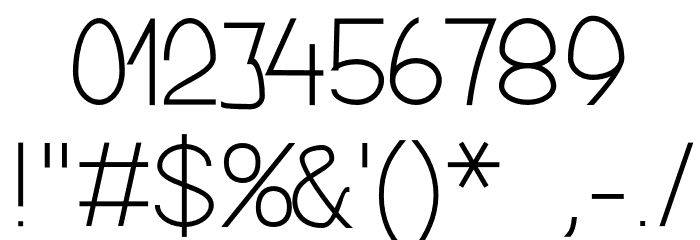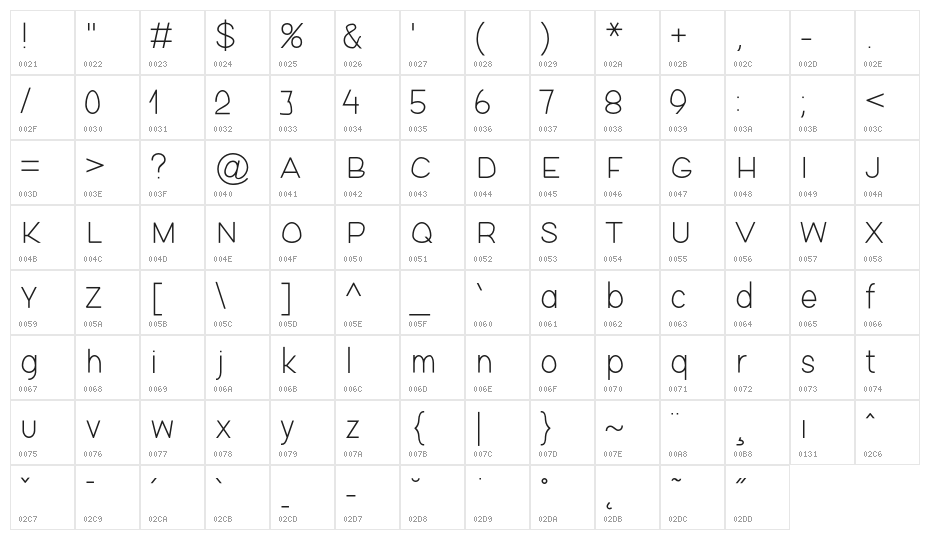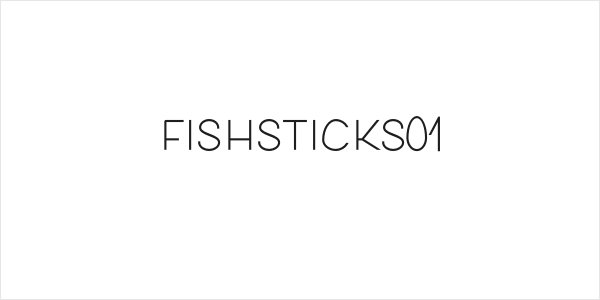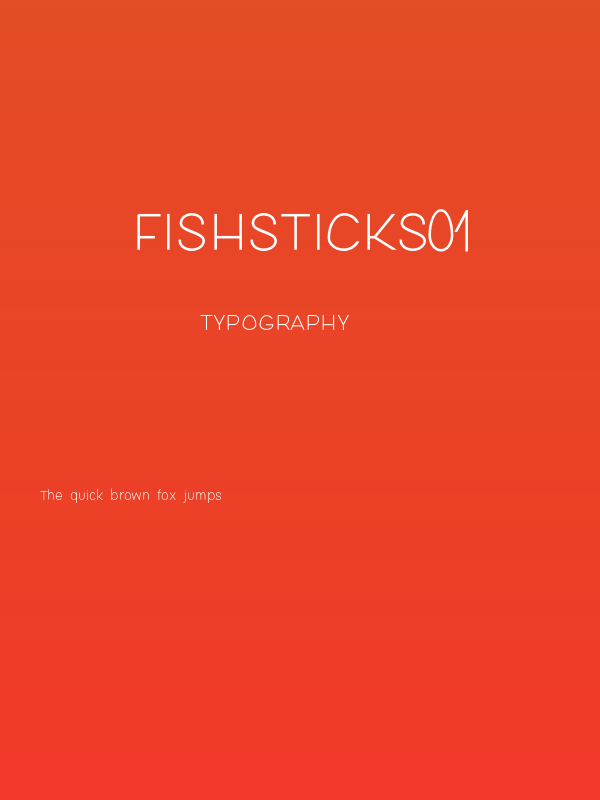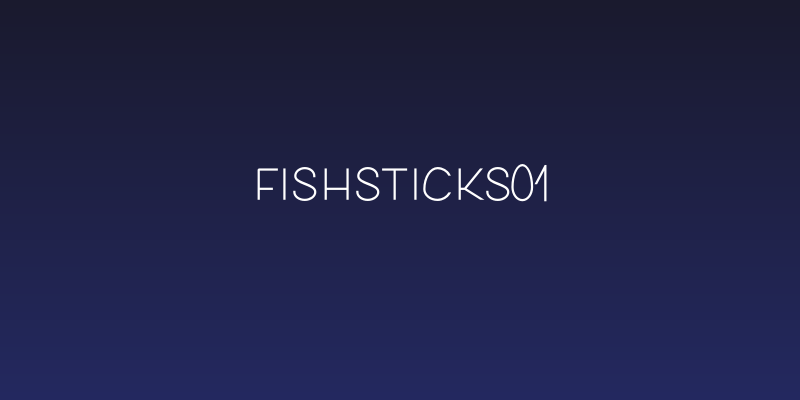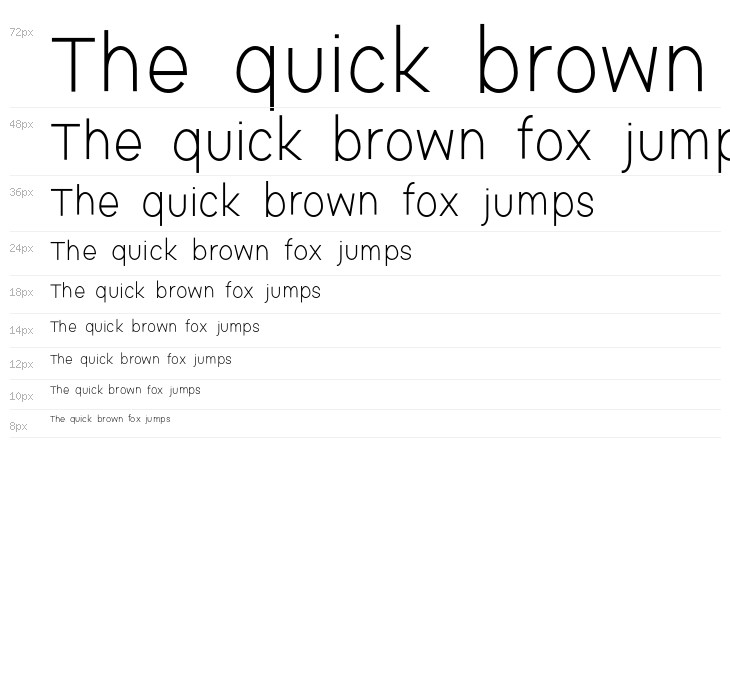
FISHSTICKS01 Font
FISHSTICKS01 Description
This font features a clean and modern sans-serif design with uniform stroke widths and a geometric structure. The characters are well-balanced, offering a harmonious appearance that is both minimalistic and functional. The uppercase letters are bold and assertive, while the lowercase letters maintain a consistent style that complements the uppercase. The numerals are clear and easy to read, making them suitable for various applications. Special characters are included, providing versatility for different contexts. The overall design is sleek and contemporary, making it ideal for digital and print media.
| Proposed Projects | Ideal for branding, web design, advertising, and editorial layouts. |